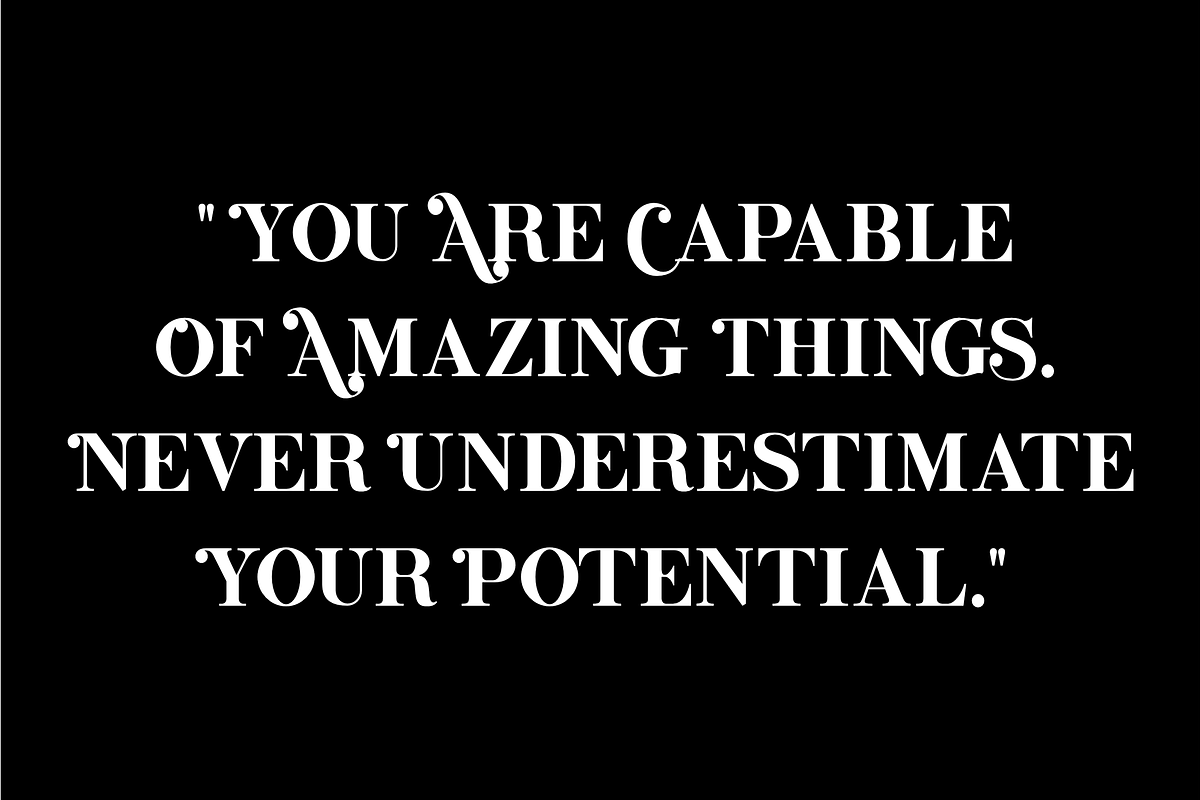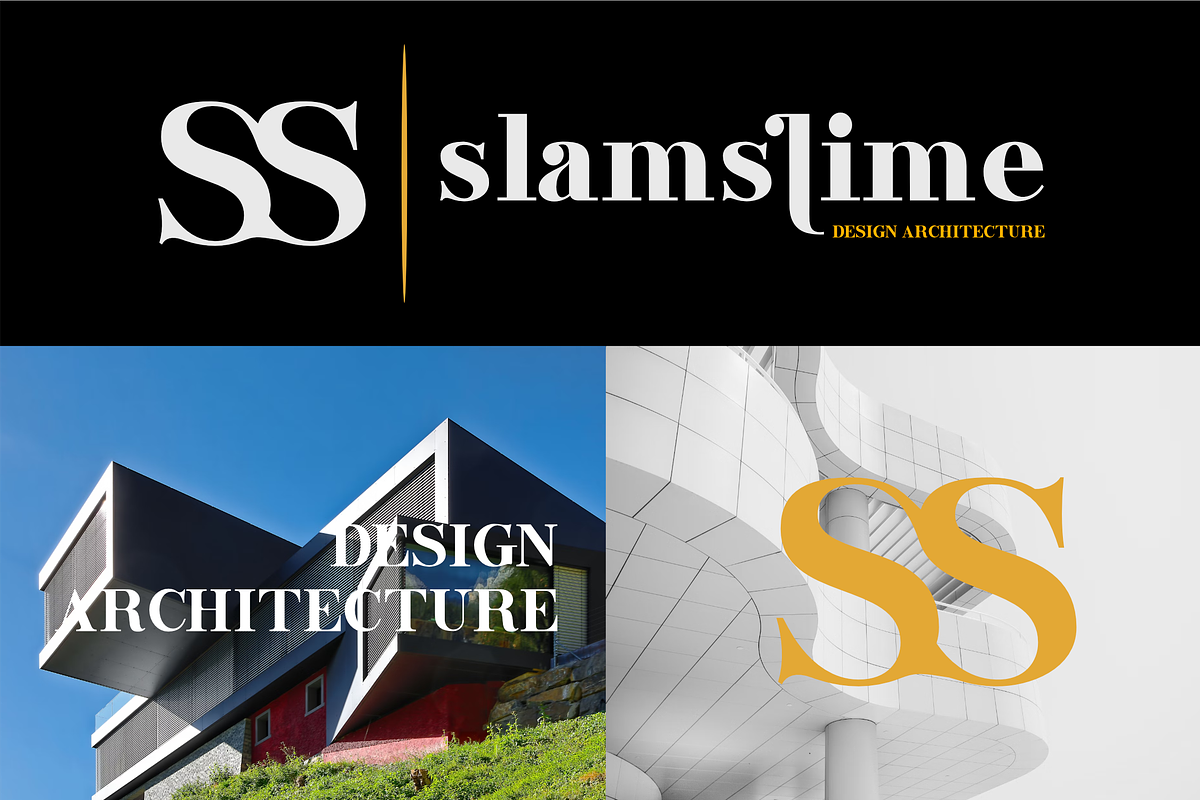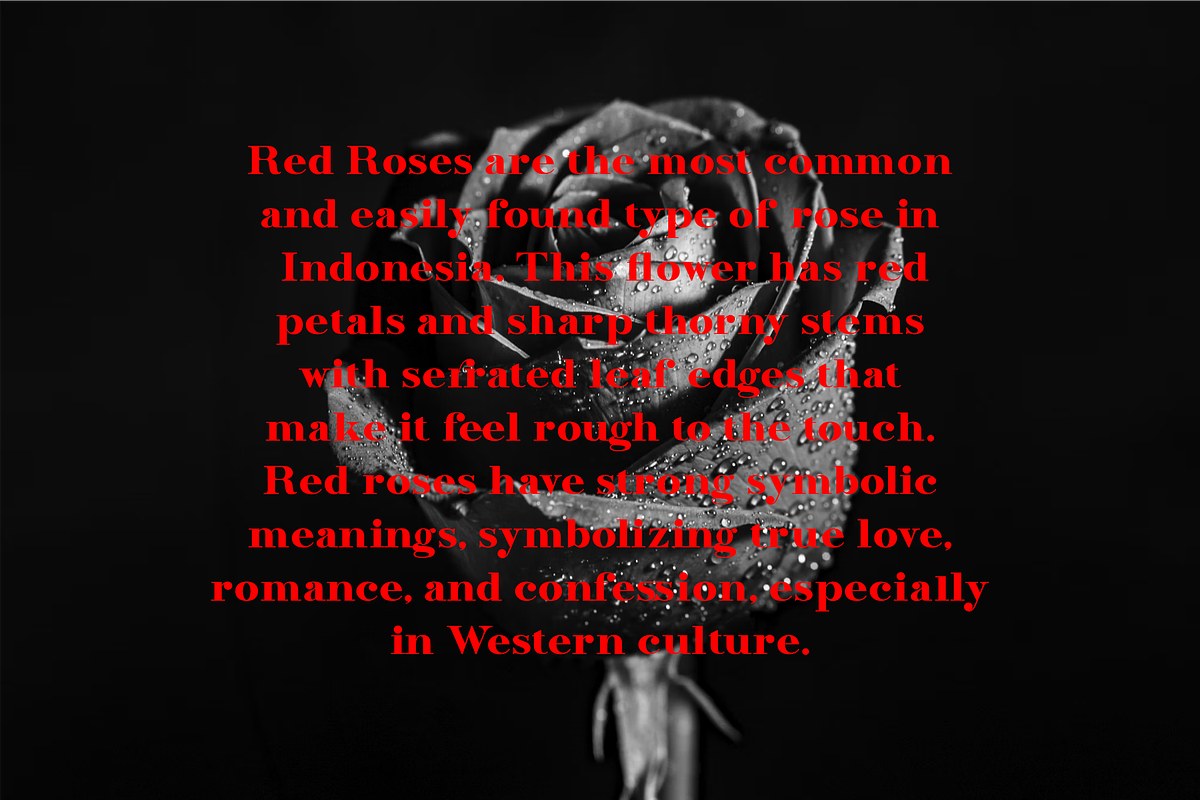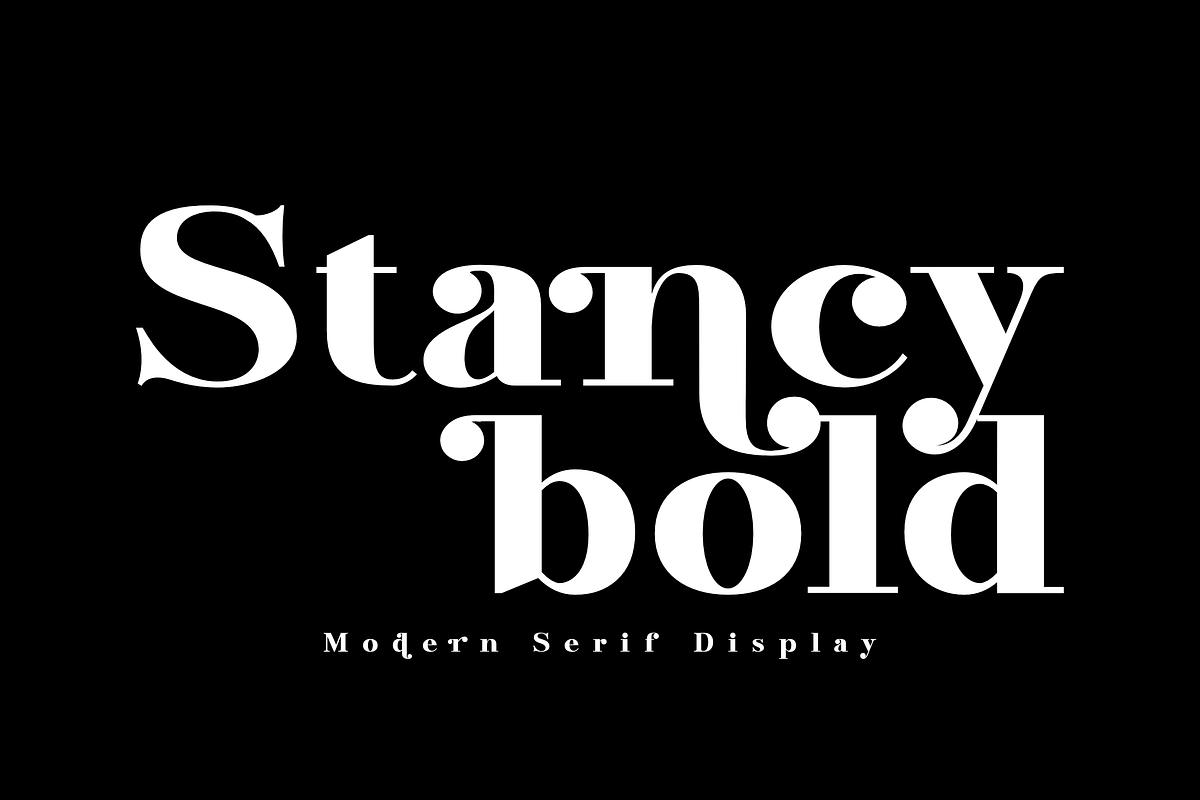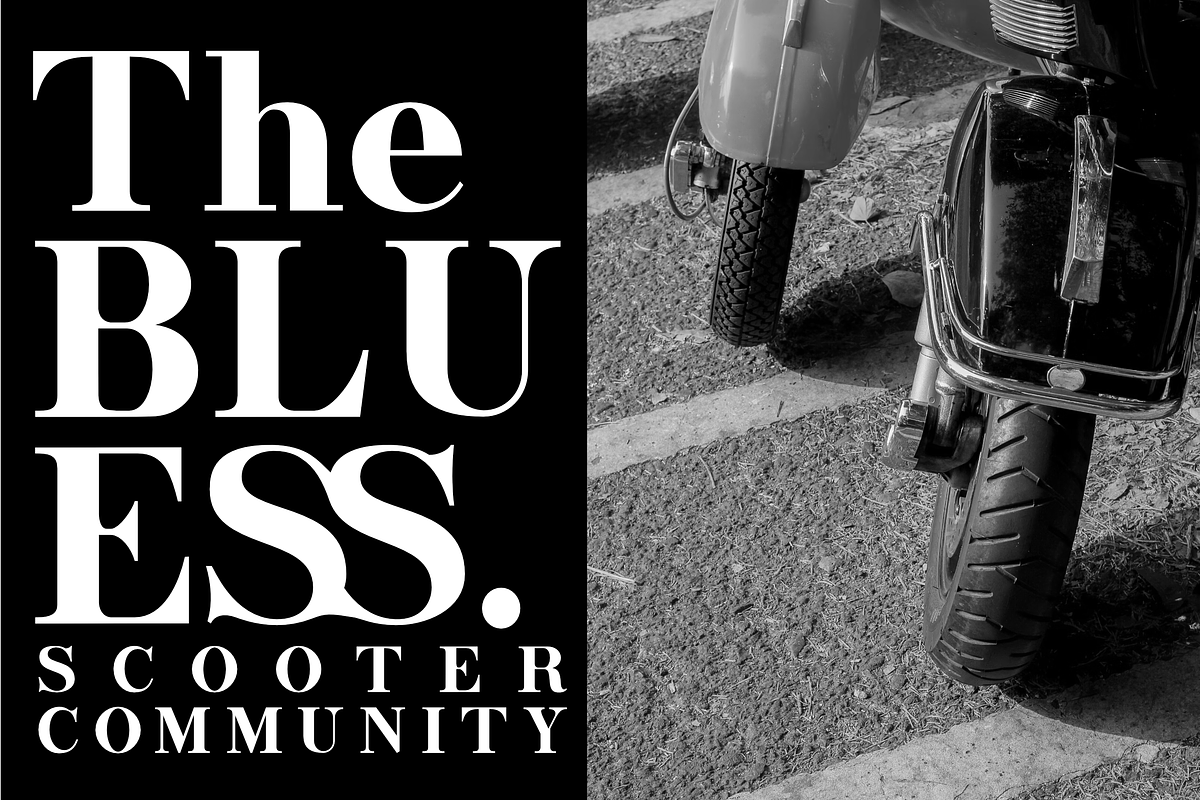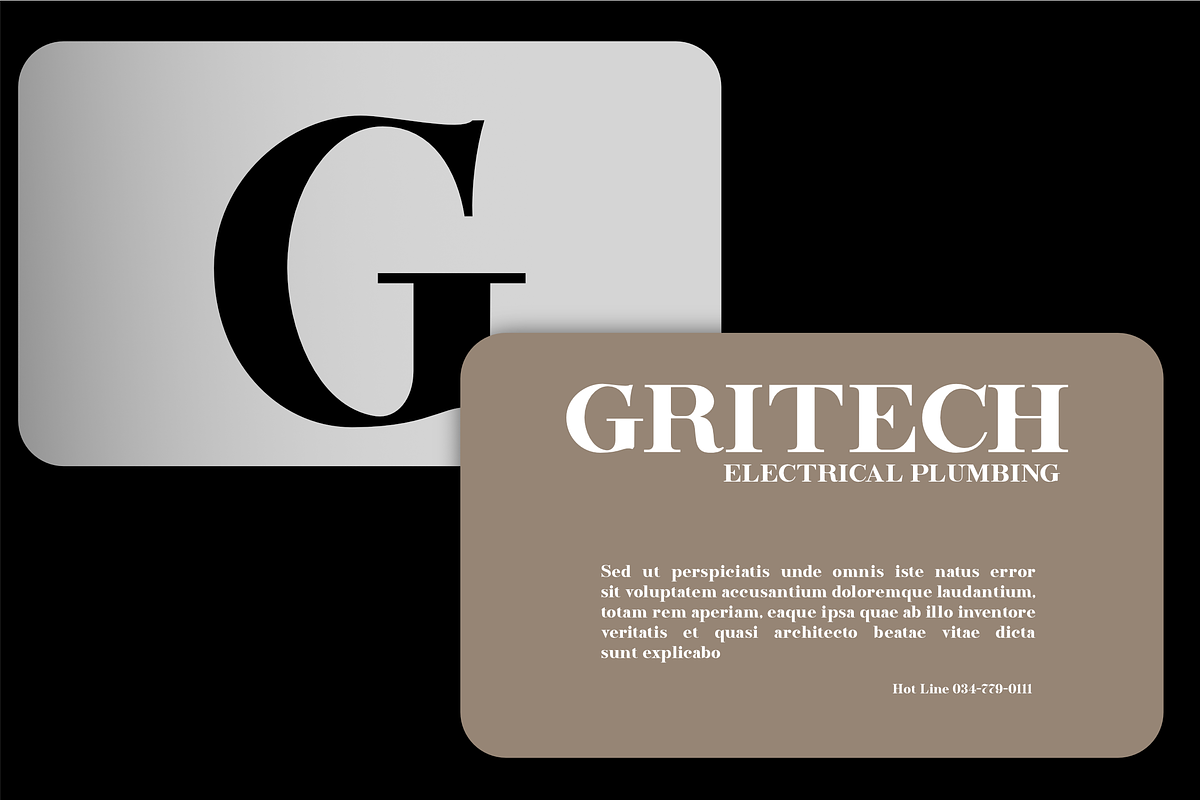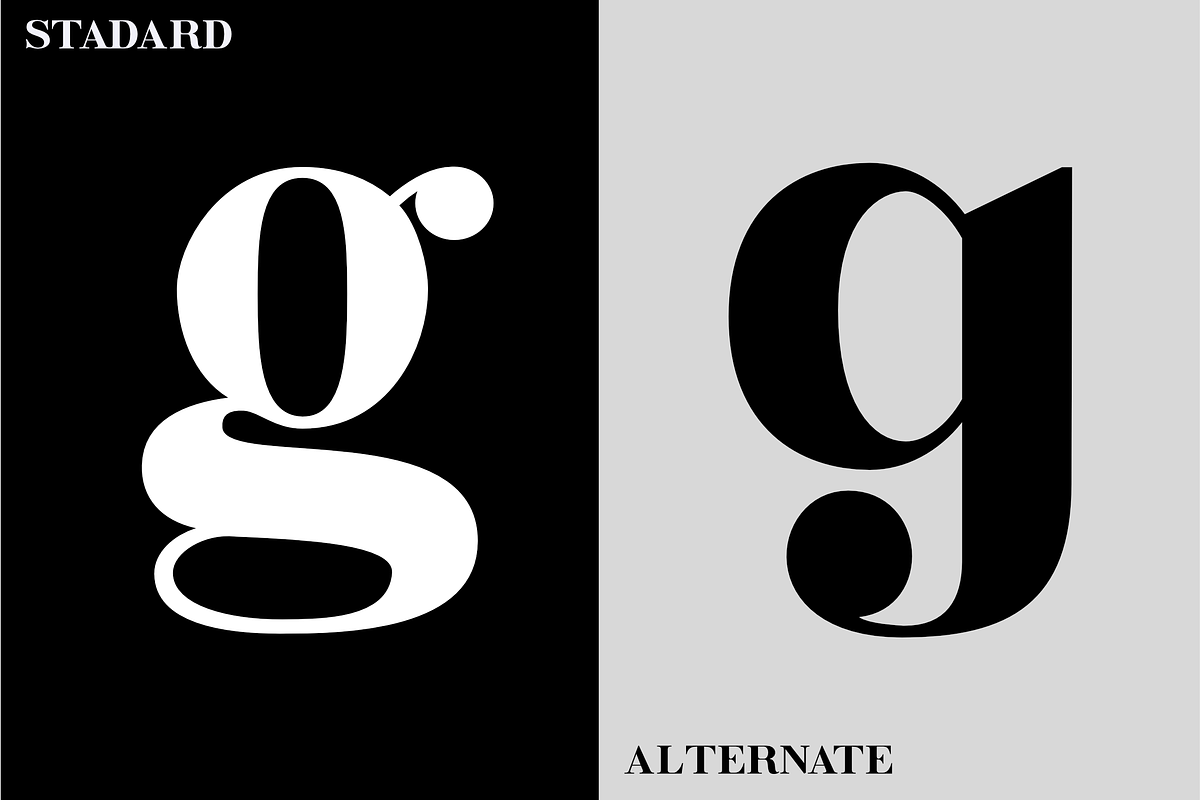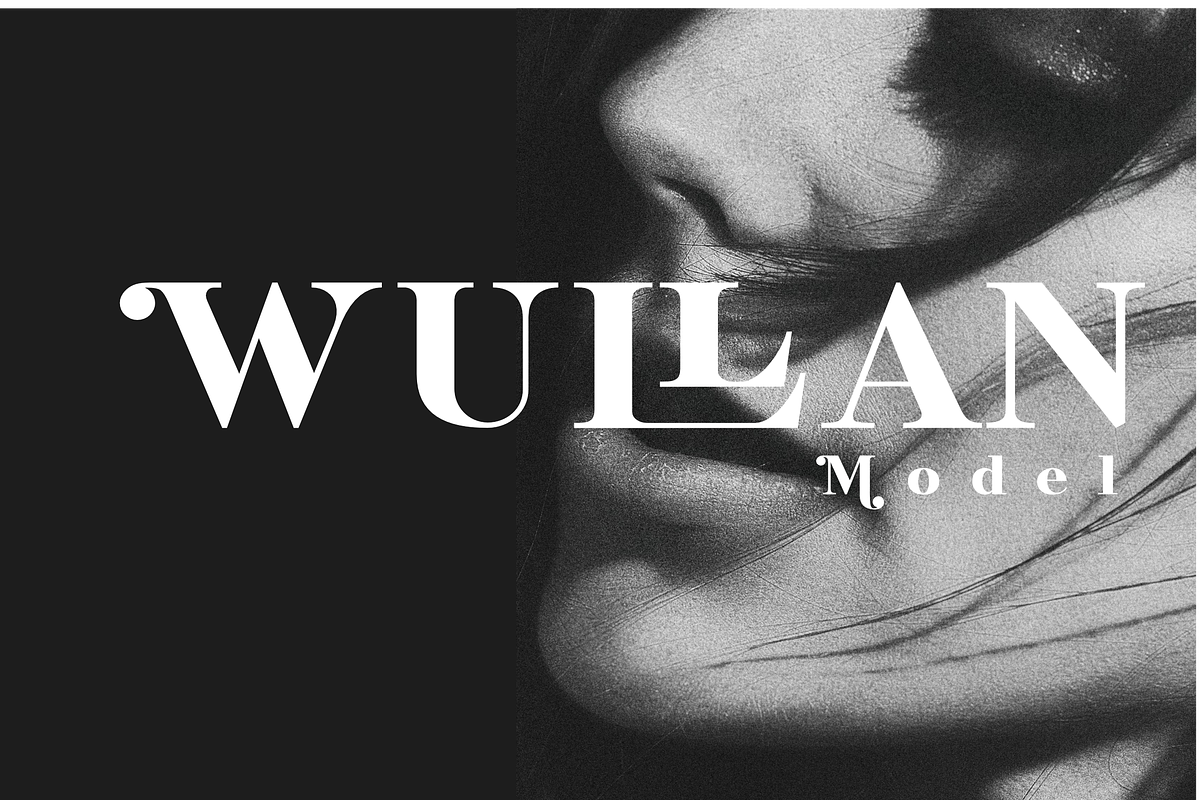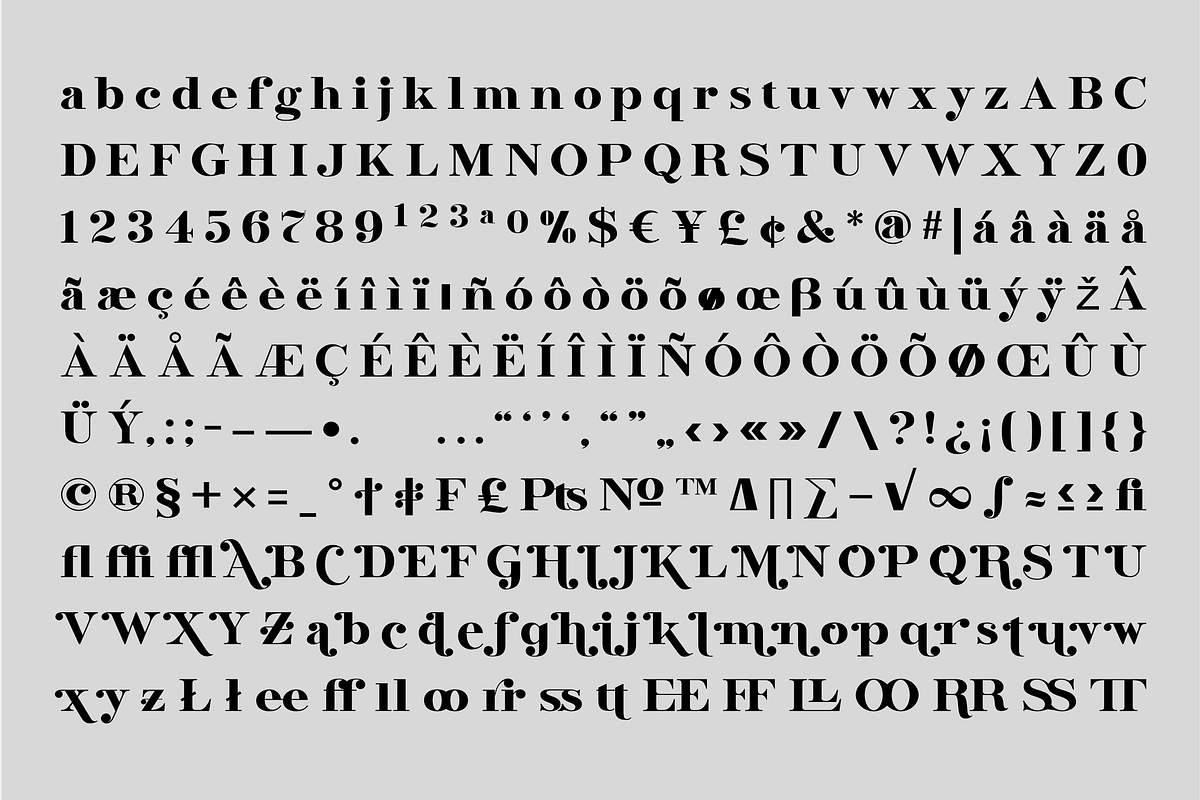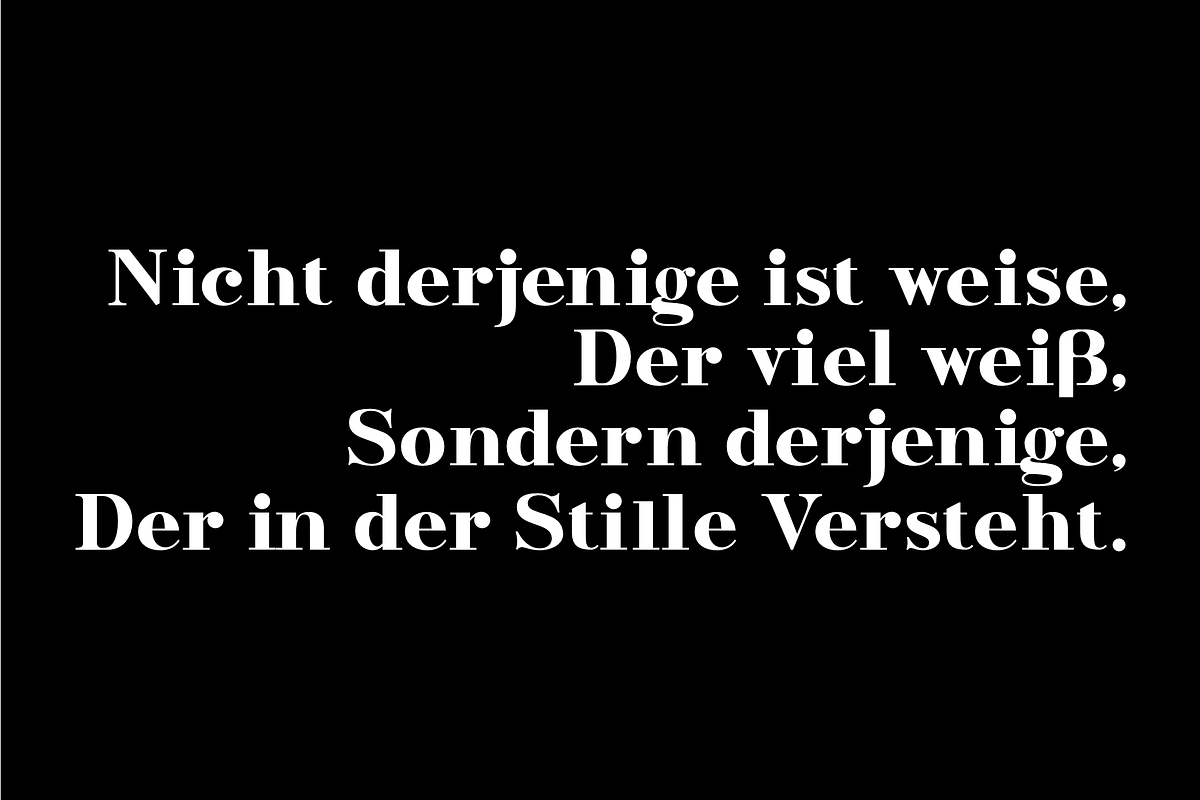
Stancybold is a bold and modern serif display font designed to make a powerful visual impact. With its thick letterforms, clean lines, and contemporary style, Stancybold brings a confident personality to any design.
This typeface includes a wide range of alternates and stylish ligatures, allowing for creative versatility and unique typographic combinations. Whether you’re building a brand or making a statement, Stancybold gives you the tools to stand out.
Perfectly suited for Logos & Branding, Quotes & Headlines, Websites & Digital Interfaces, Community Projects & Merchandise, And much more
Elevate your creative projects with the bold charm of Stancybold — where modern design meets strong character.